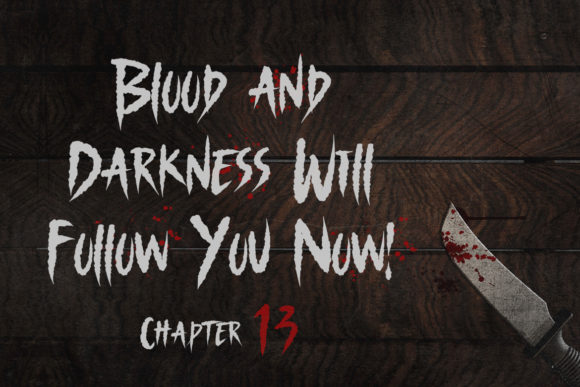
Nightscary Font
Nightscary is a cool, brushed and creepy looking display font. Add this spooky font to your most inspired Halloween creations, and notice how they come to life.